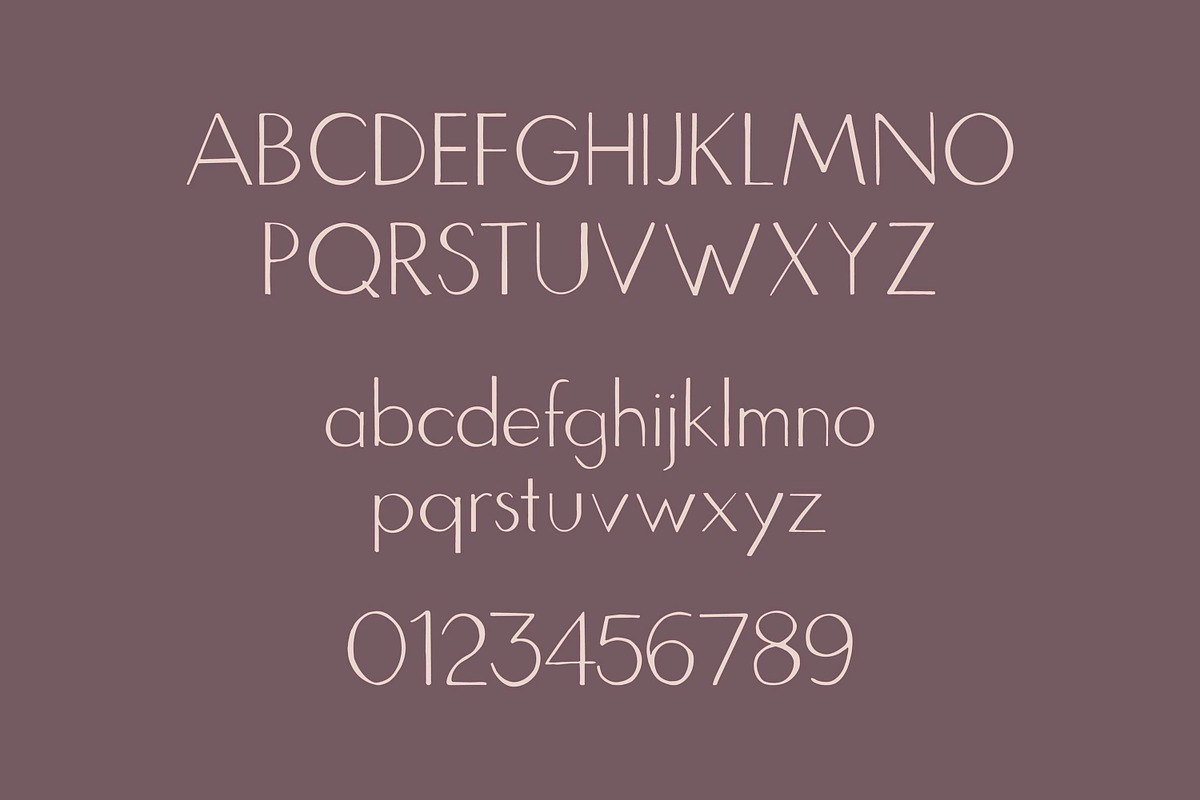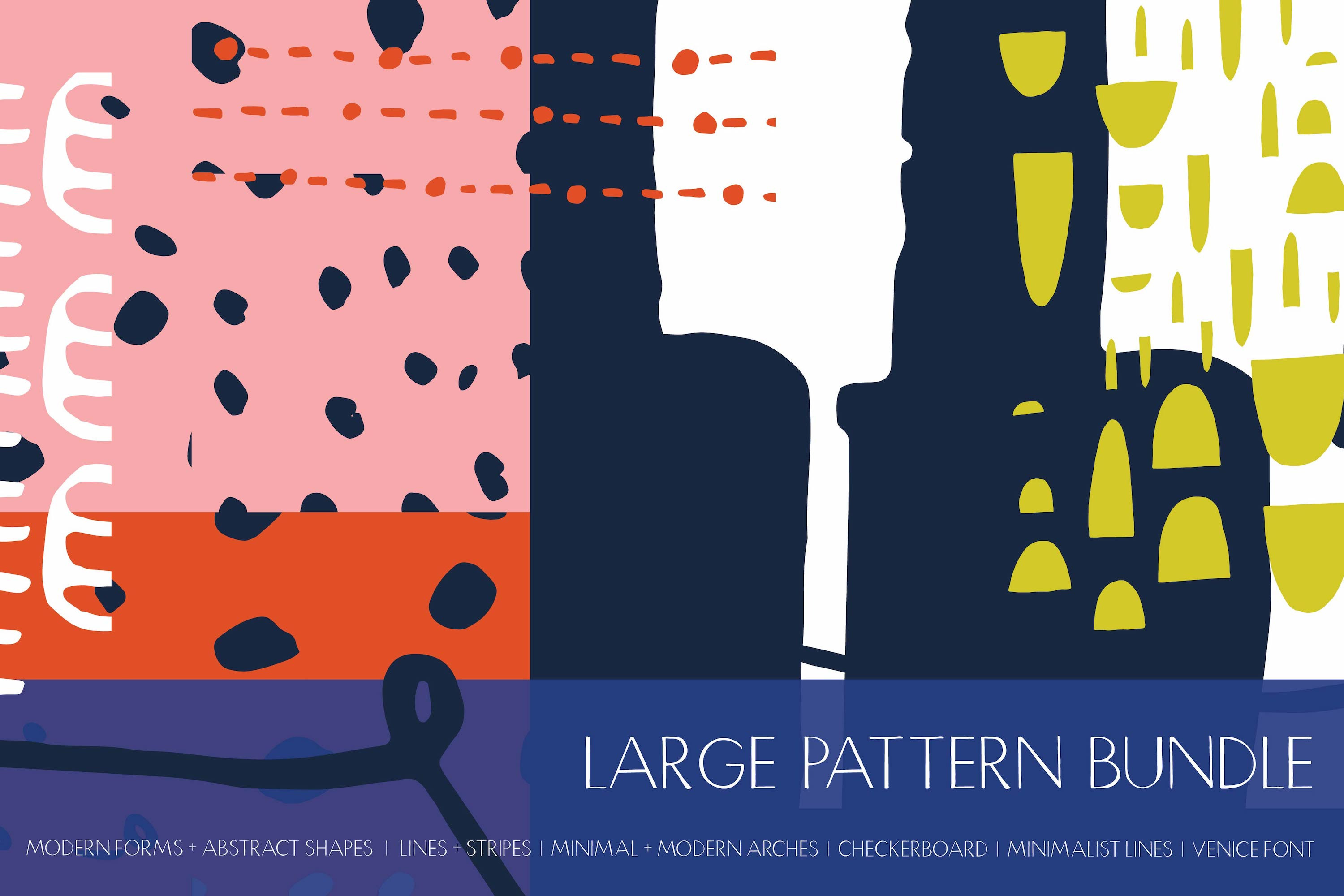
65% OFF-Large Pattern + Font Bundle
This our largest bundle yet! It includes five of our favorite collections of Patterns and Art Boards along with our newest font. These patterns and font combined are a $80 value now on sale for $28 standard License and $199 Extended! all files are fully editable so you can change any color palette to your liking. Mix and match to create anything from birthday cards to packaging!
Hand-Drawn minimalist font inspired by geometry and The Greek Renaissance. Use font to create everything from elegant LOGOs to beautiful stationery.